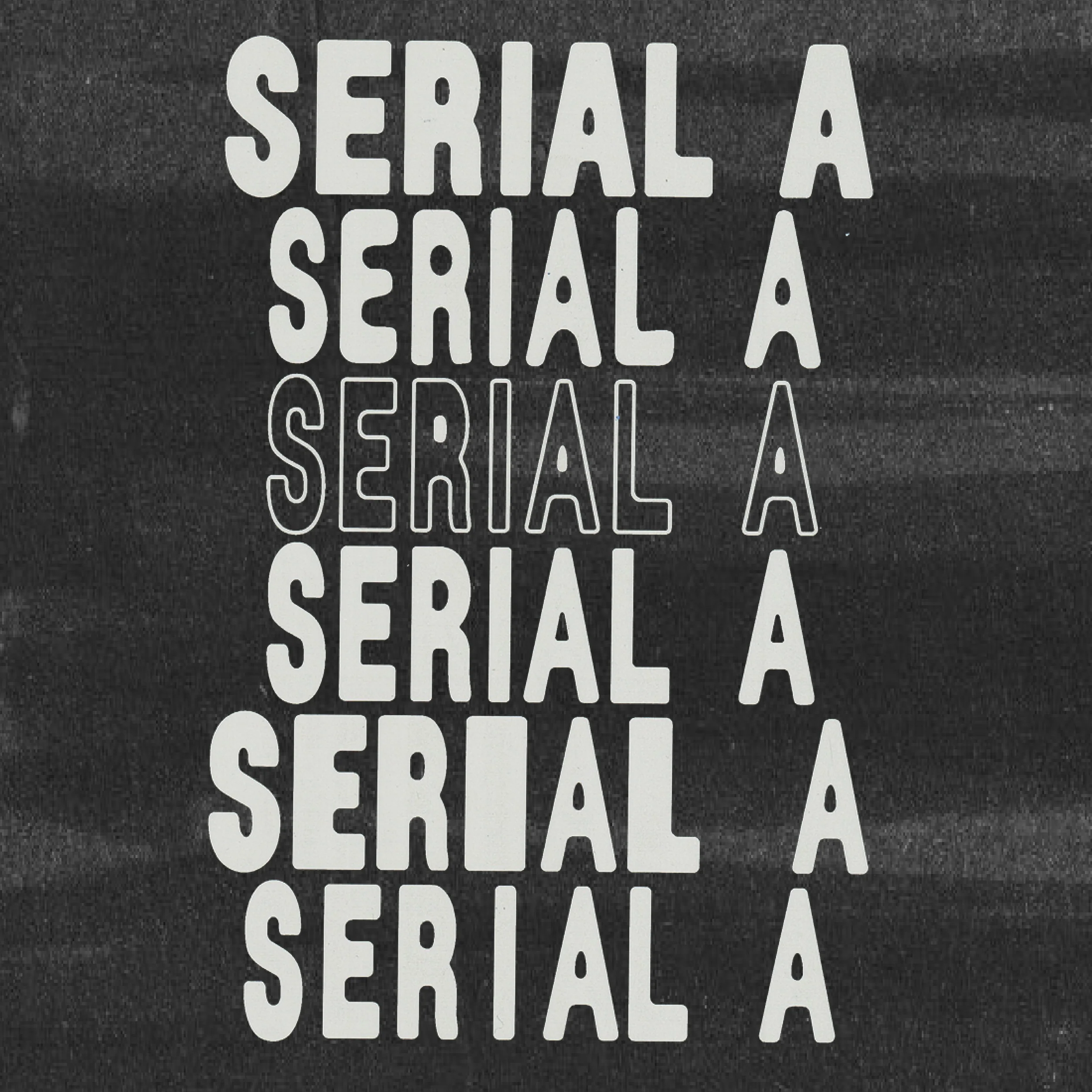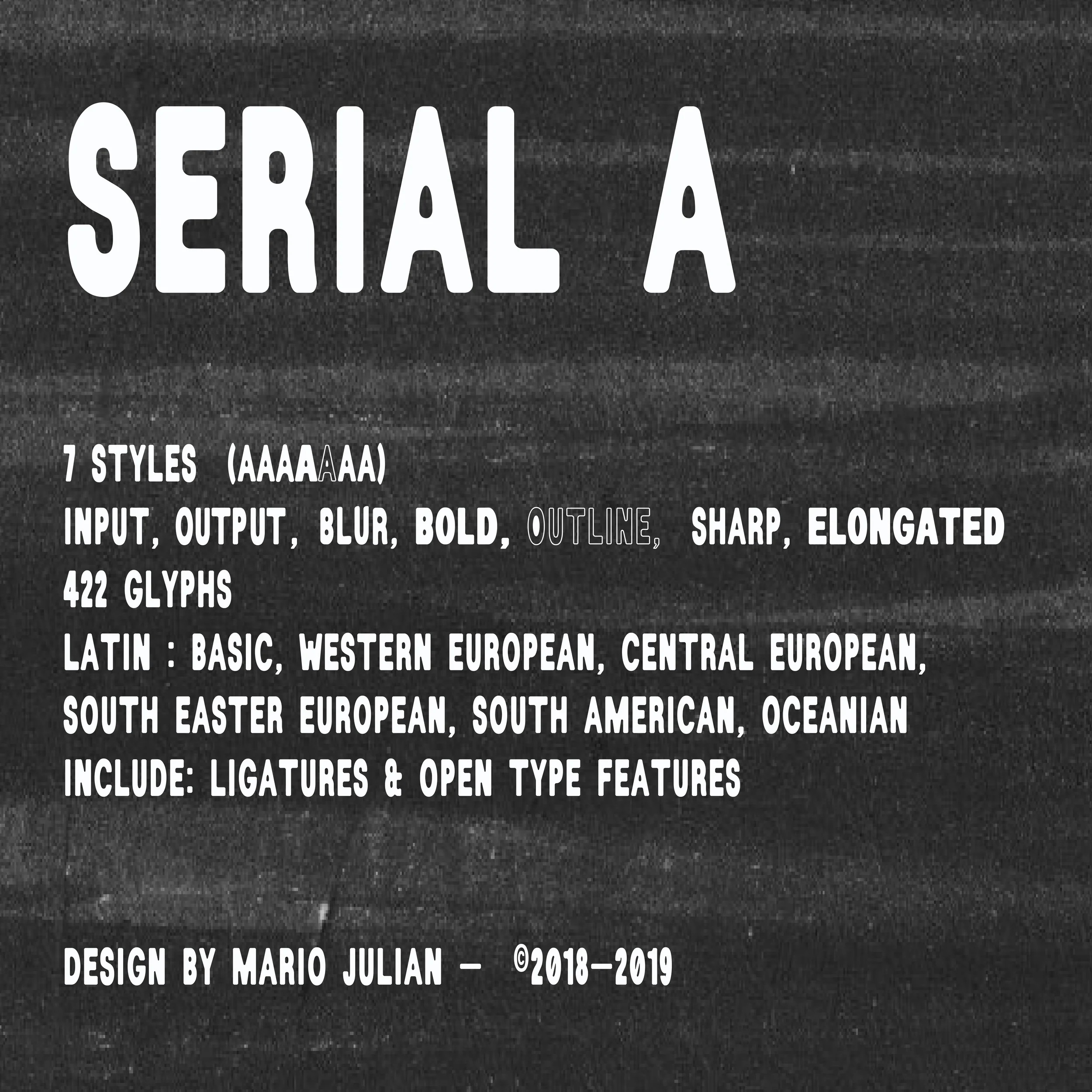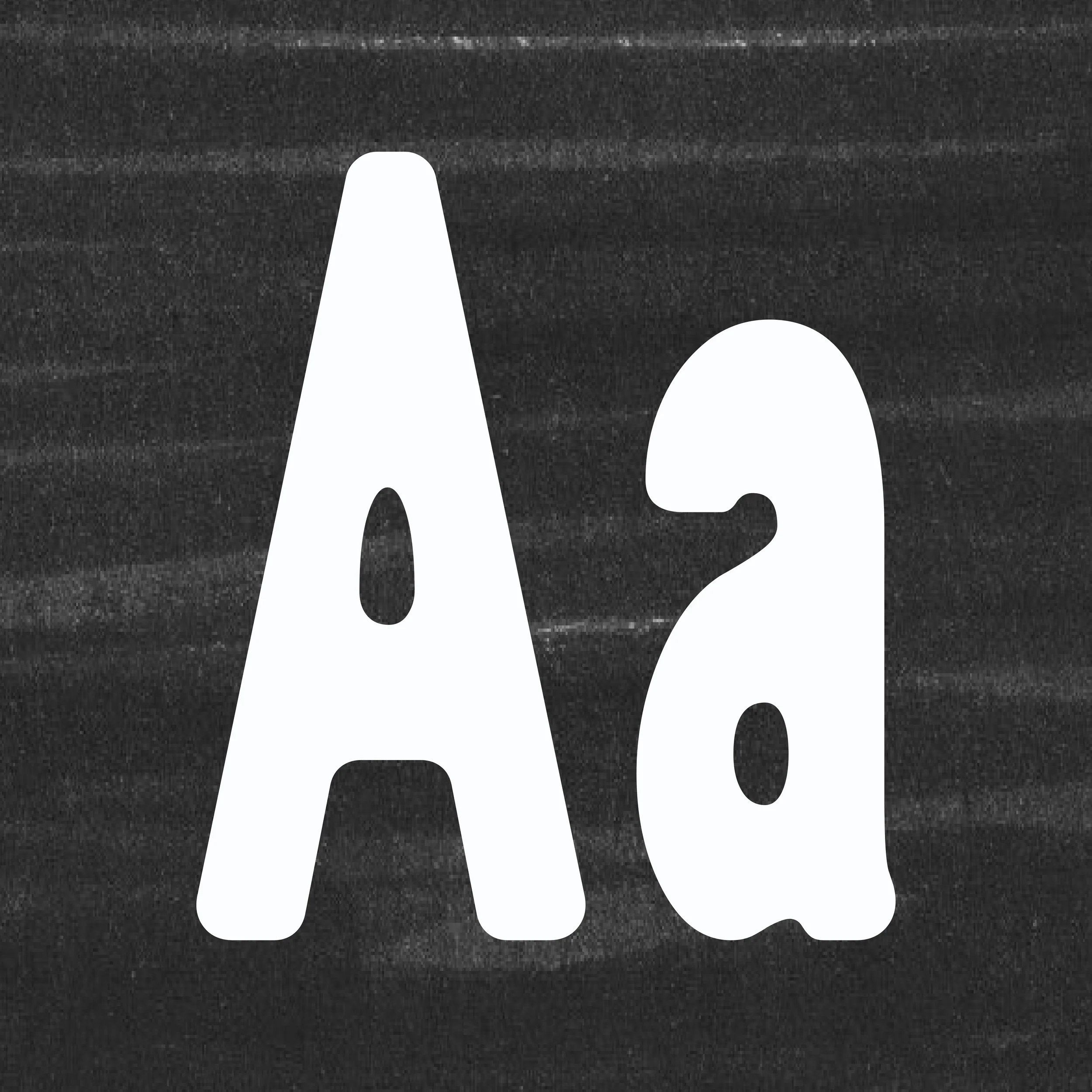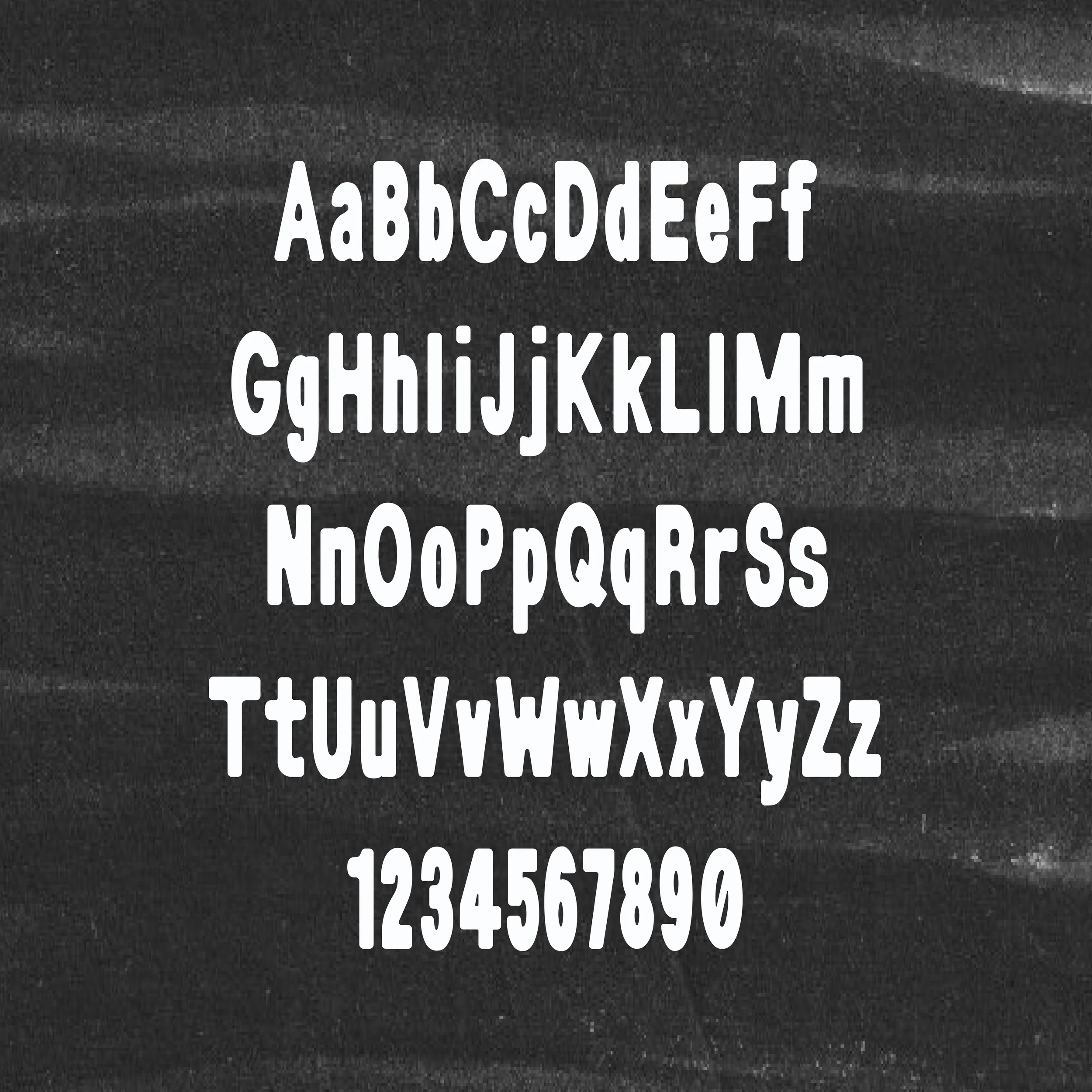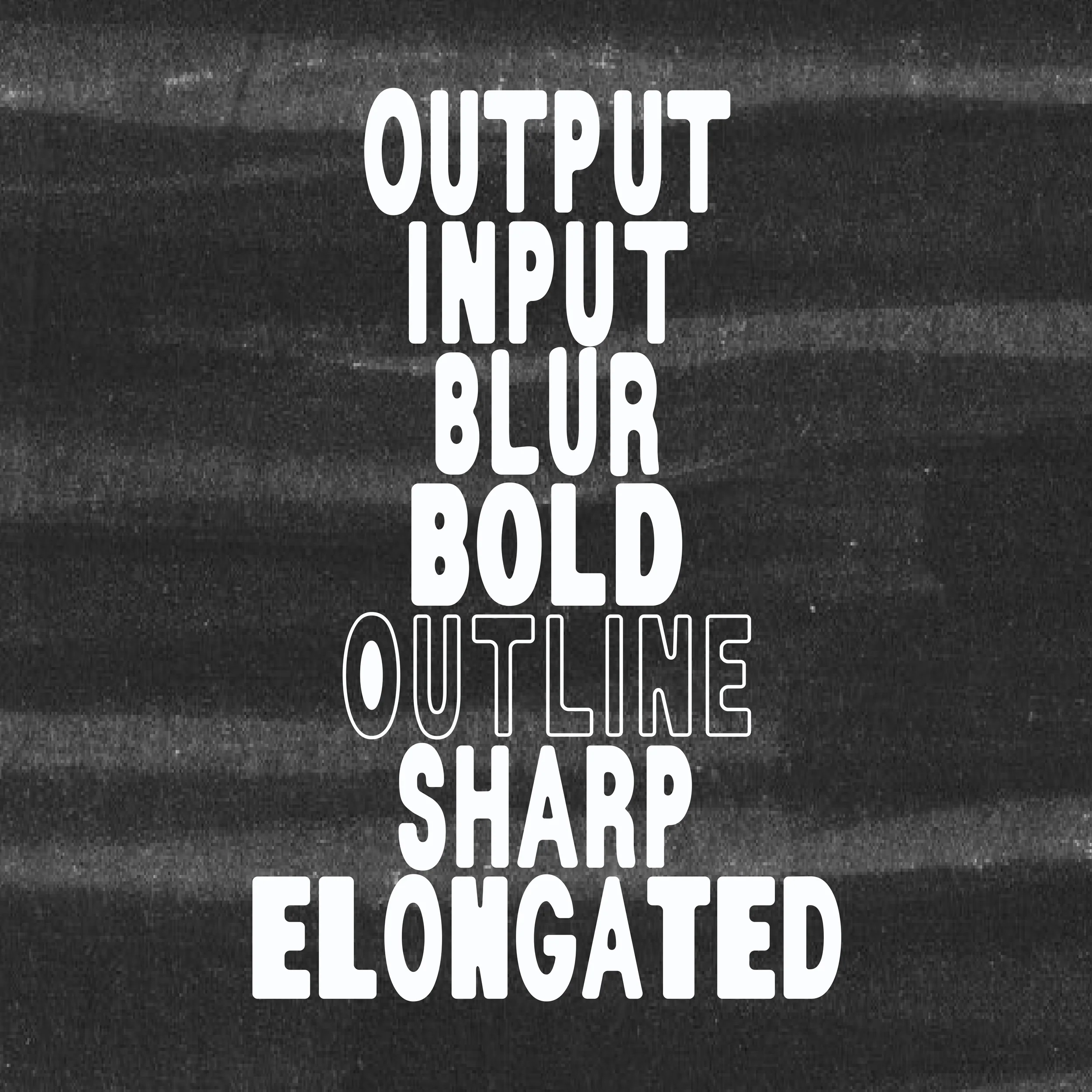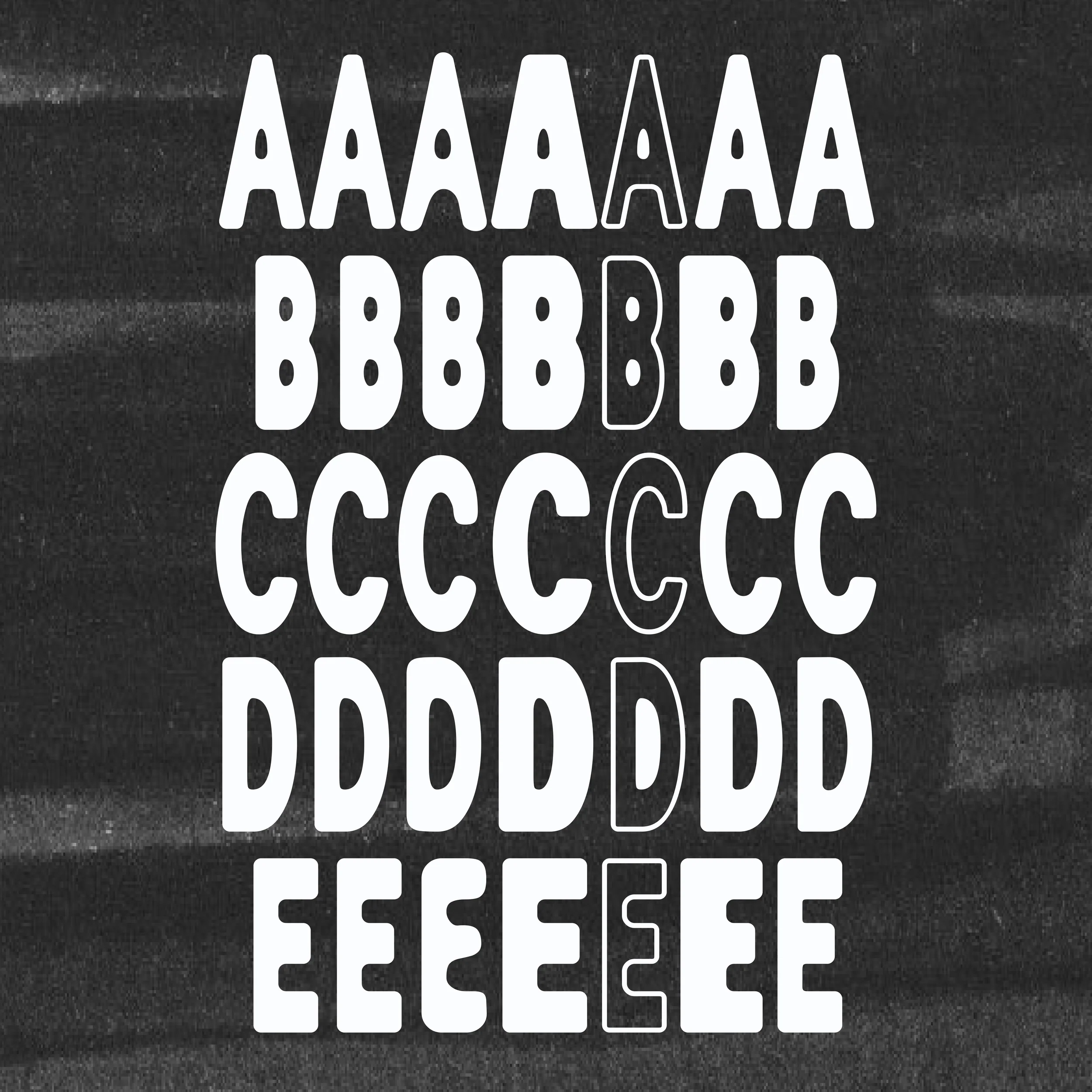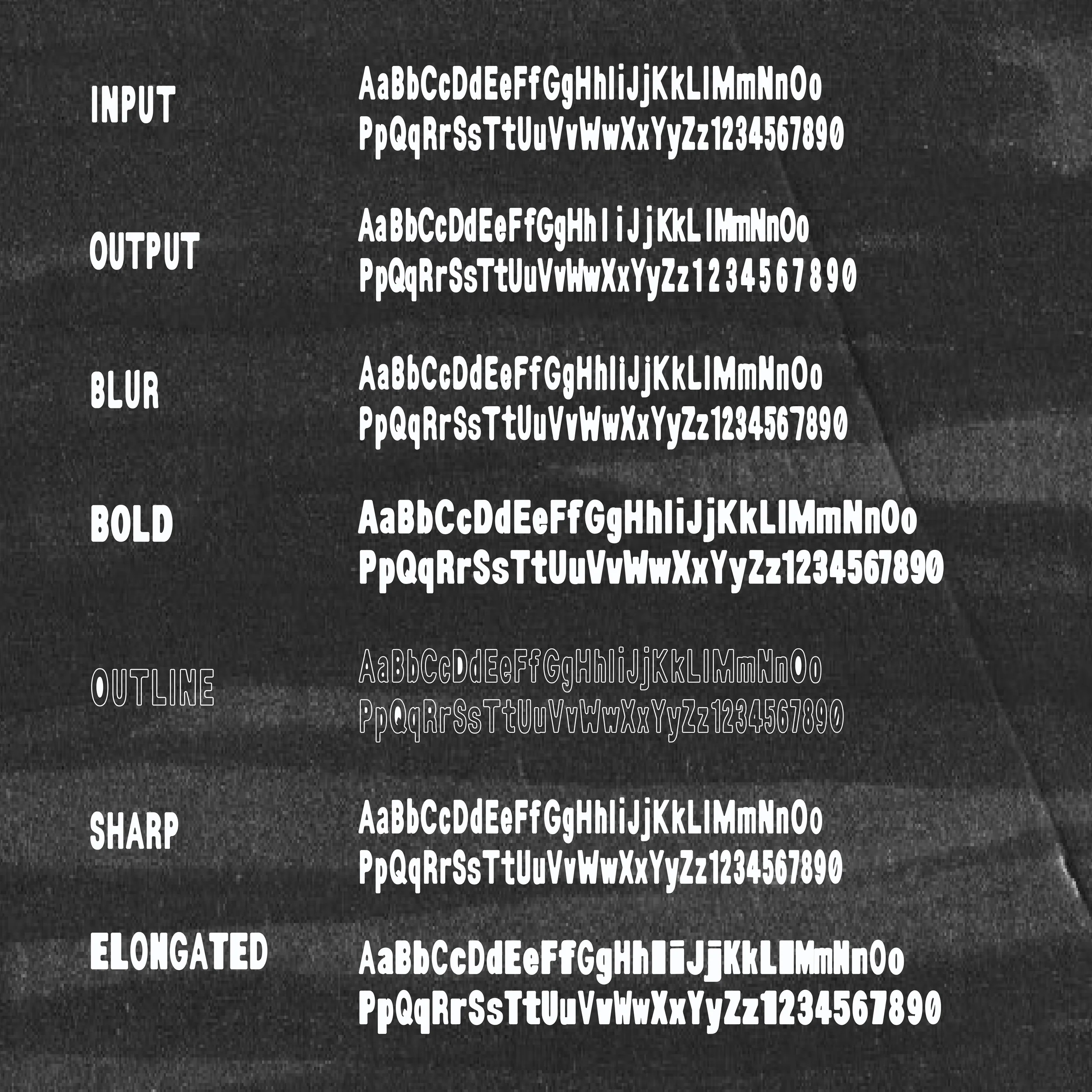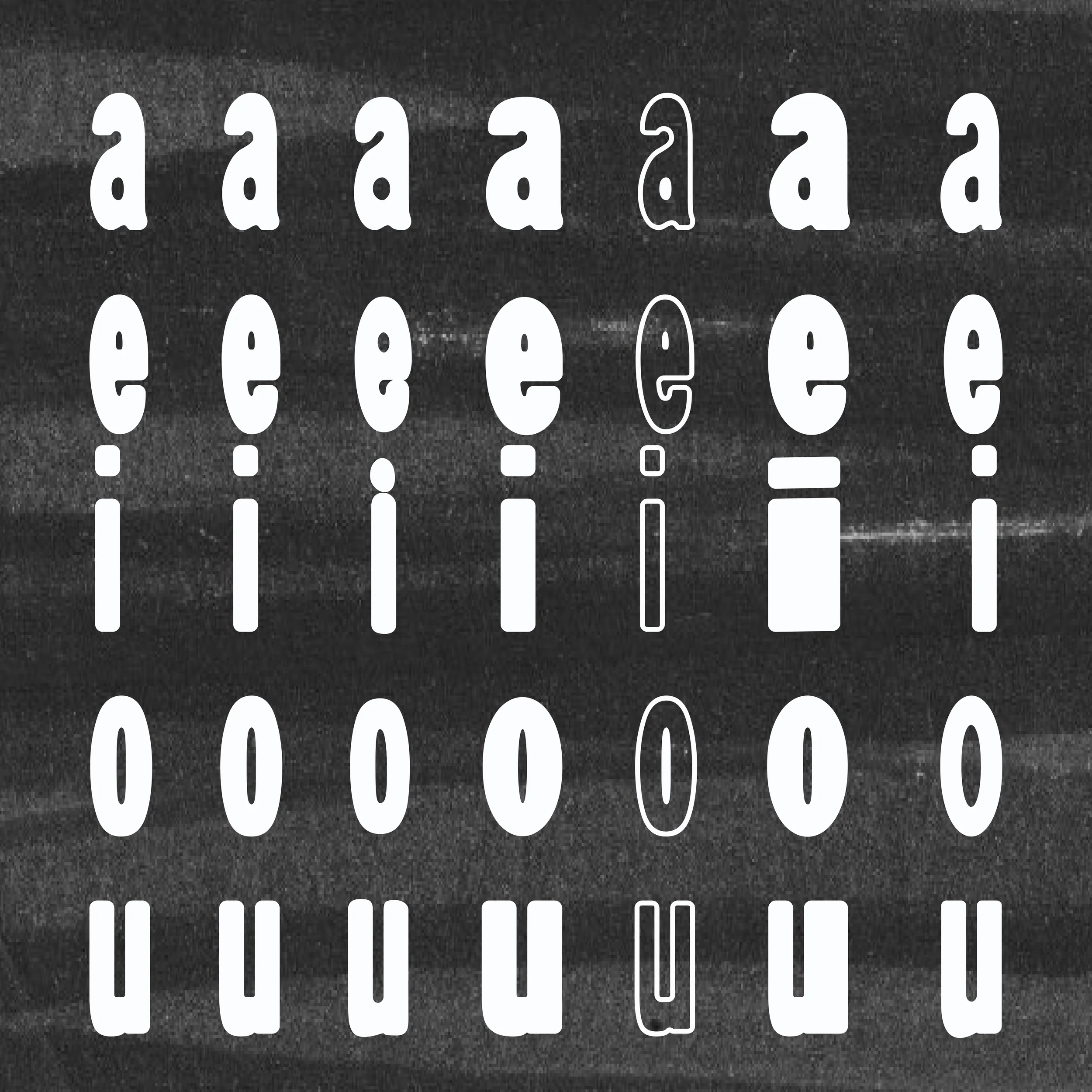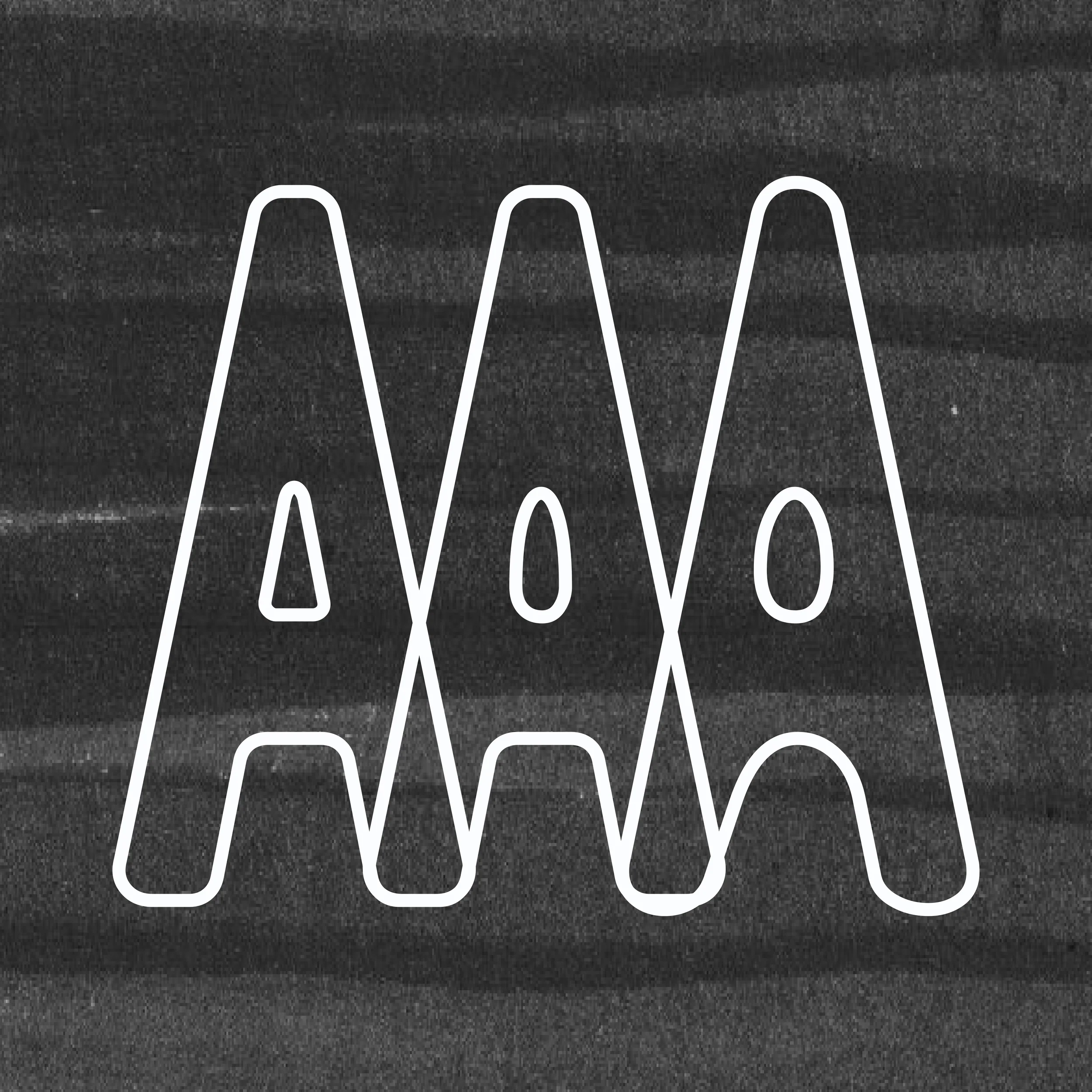
Serial A
Serial A is a bold and contemporary typeface, characterised by its highly compressed and thick letterforms. It is ideal for titles, creating a strong impact and capturing attention at any size.
Available in 20 different styles, Serial A explores various graphic concepts and ideas, pushing the boundaries of typographic expression.
Serial A is a bold and contemporary typeface, characterised by its highly compressed and thick letterforms. It is ideal for titles, creating a strong impact and capturing attention at any size.
Available in 20 different styles, Serial A explores various graphic concepts and ideas, pushing the boundaries of typographic expression.